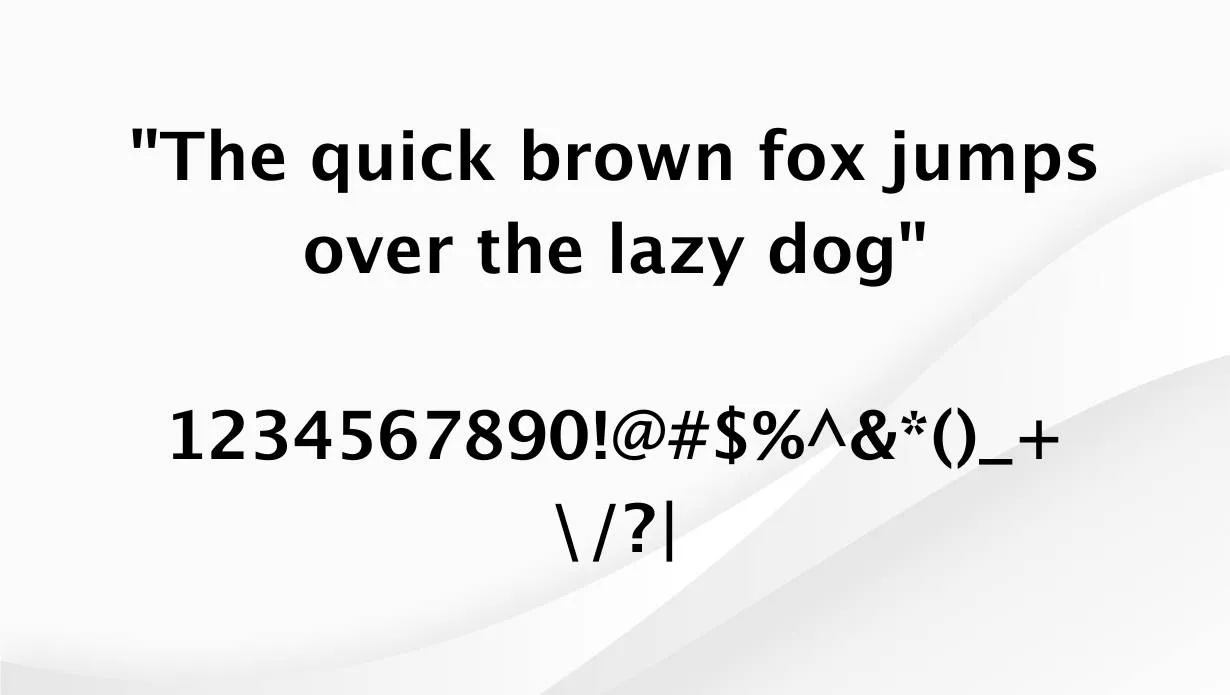
The Lucida Grande Font is a clear and simple option in typography, perfect for projects that prioritize easy readability. Its straightforward characters are ideal for various applications, ensuring clarity in documents with MS Word or enhancing web content with CSS.
| Name | Lucida Grande Font |
| Designer | Charles Bigelow |